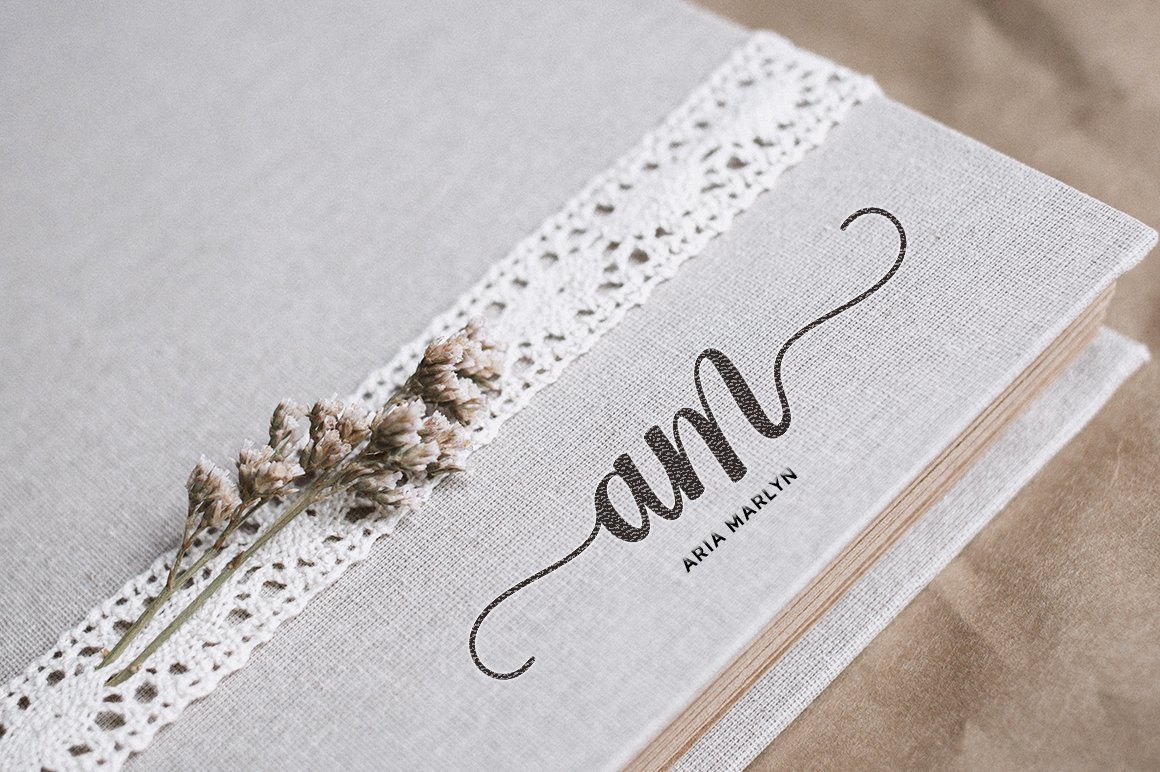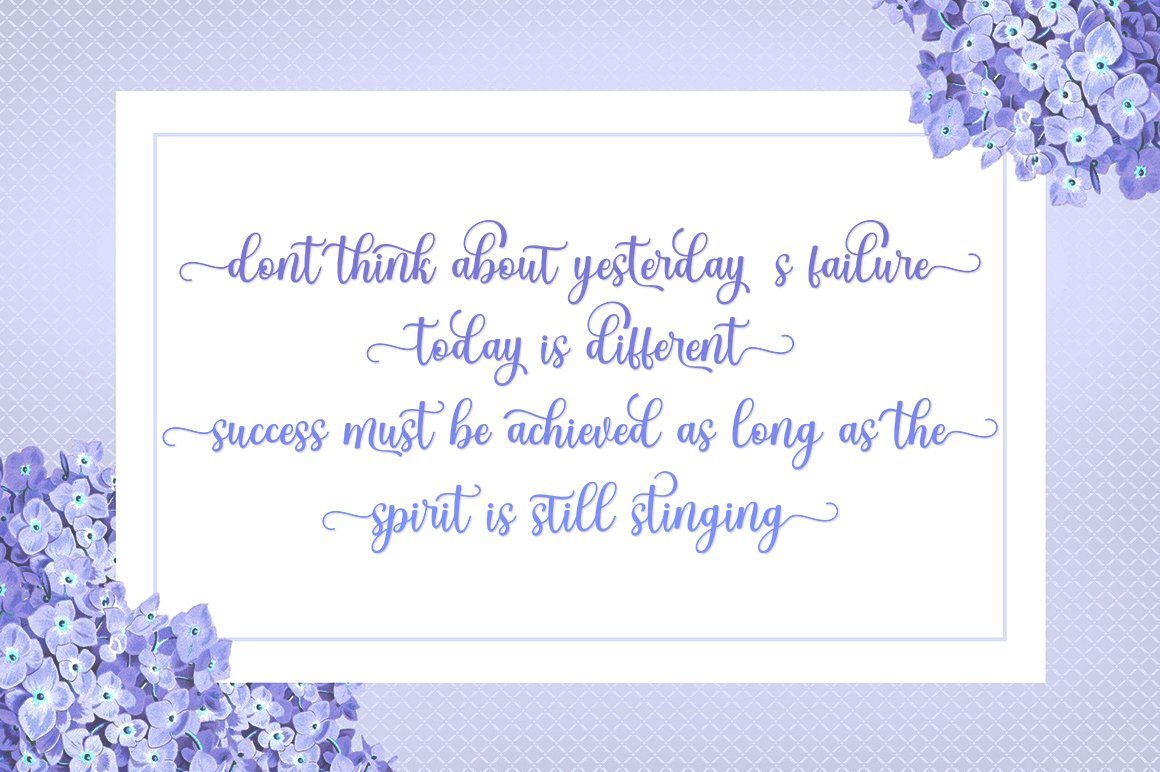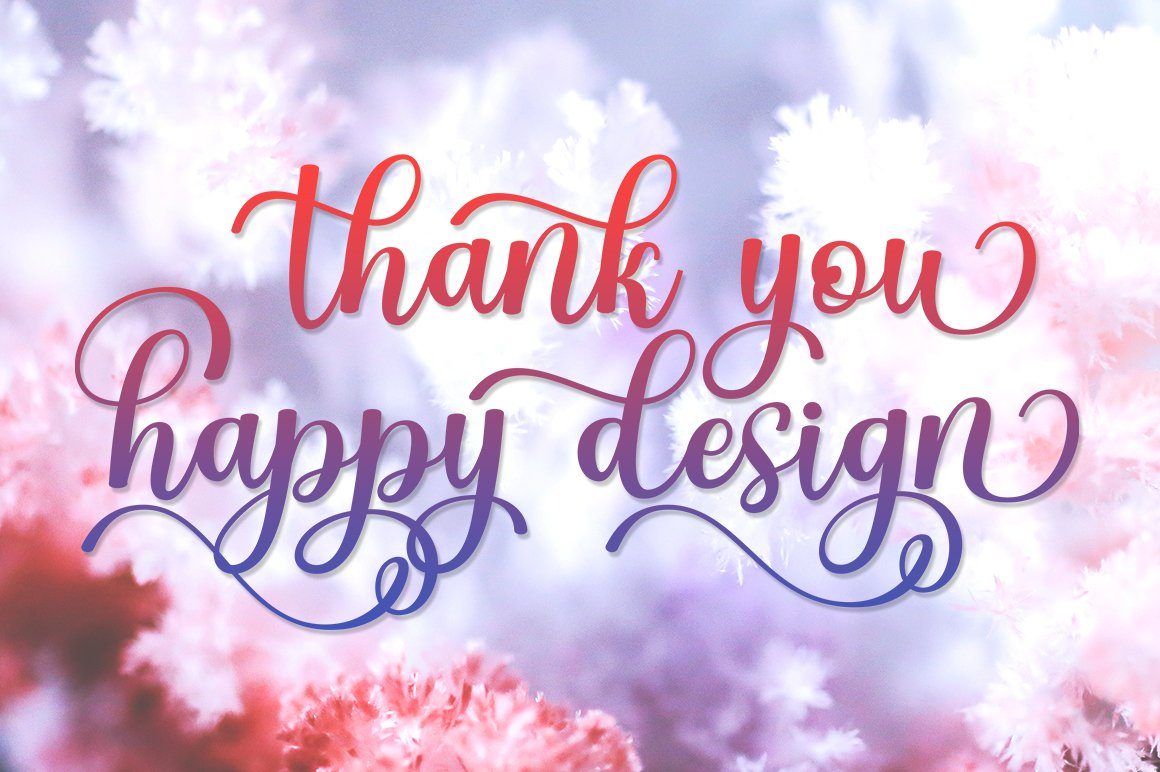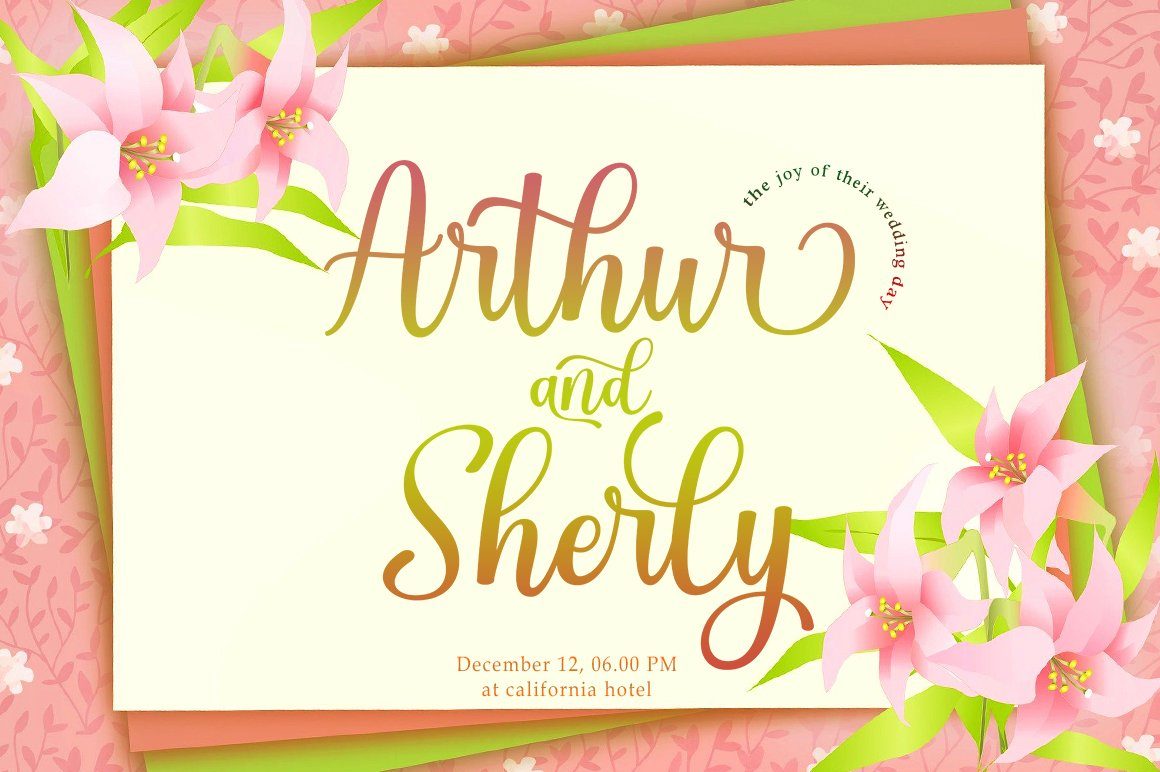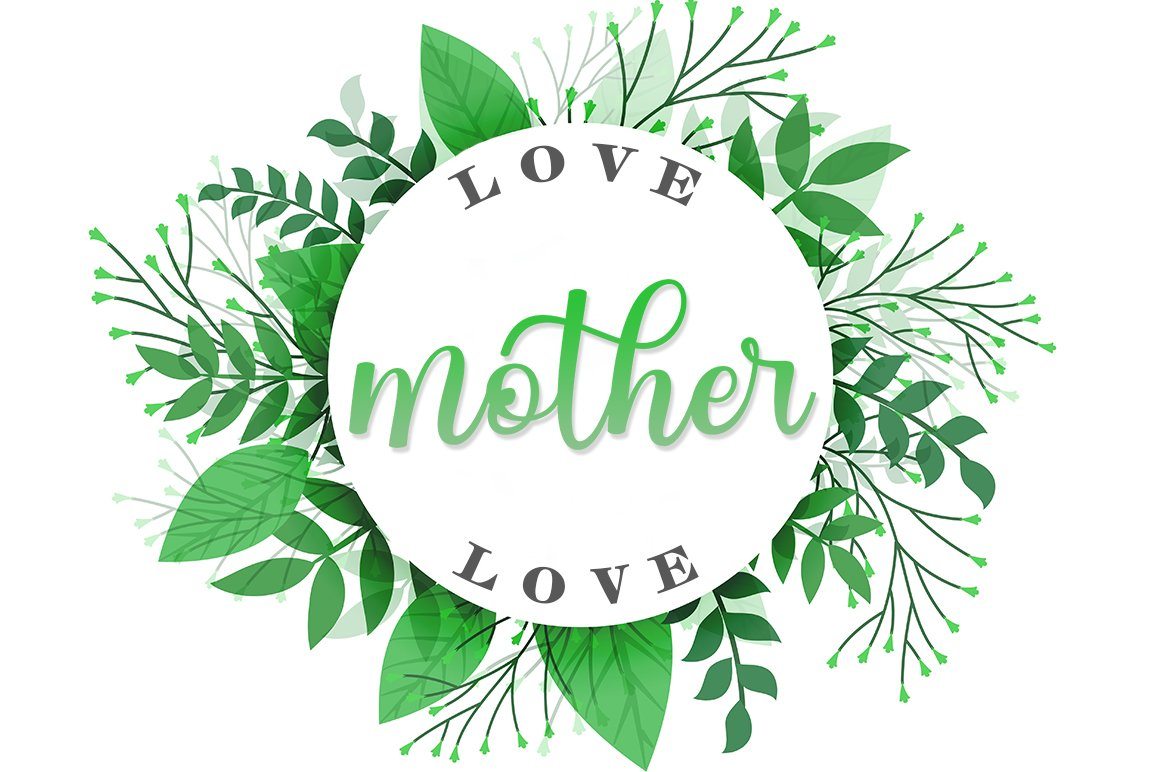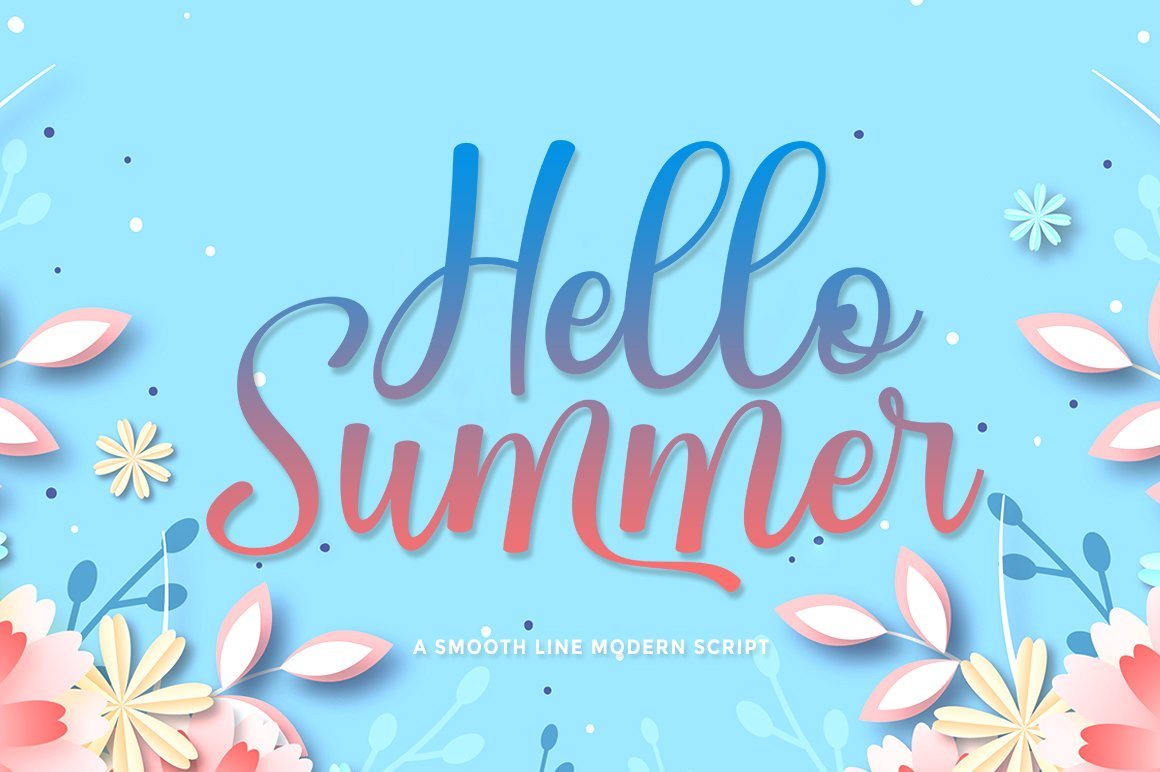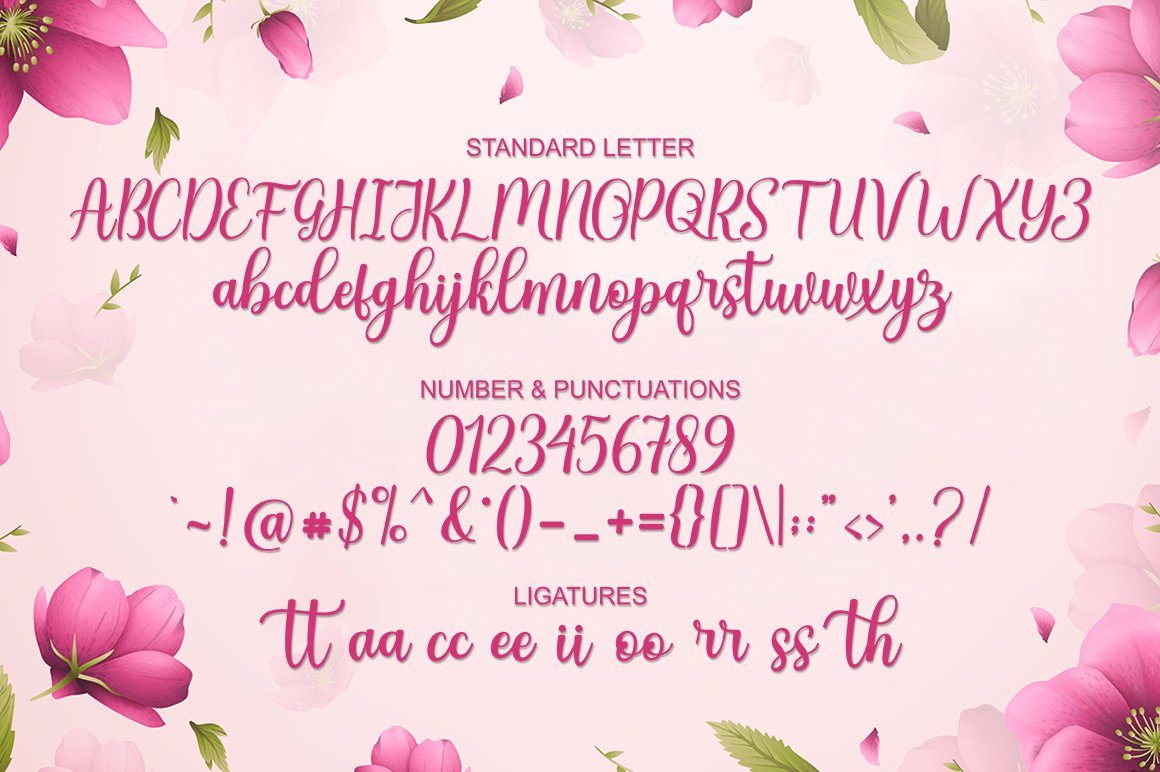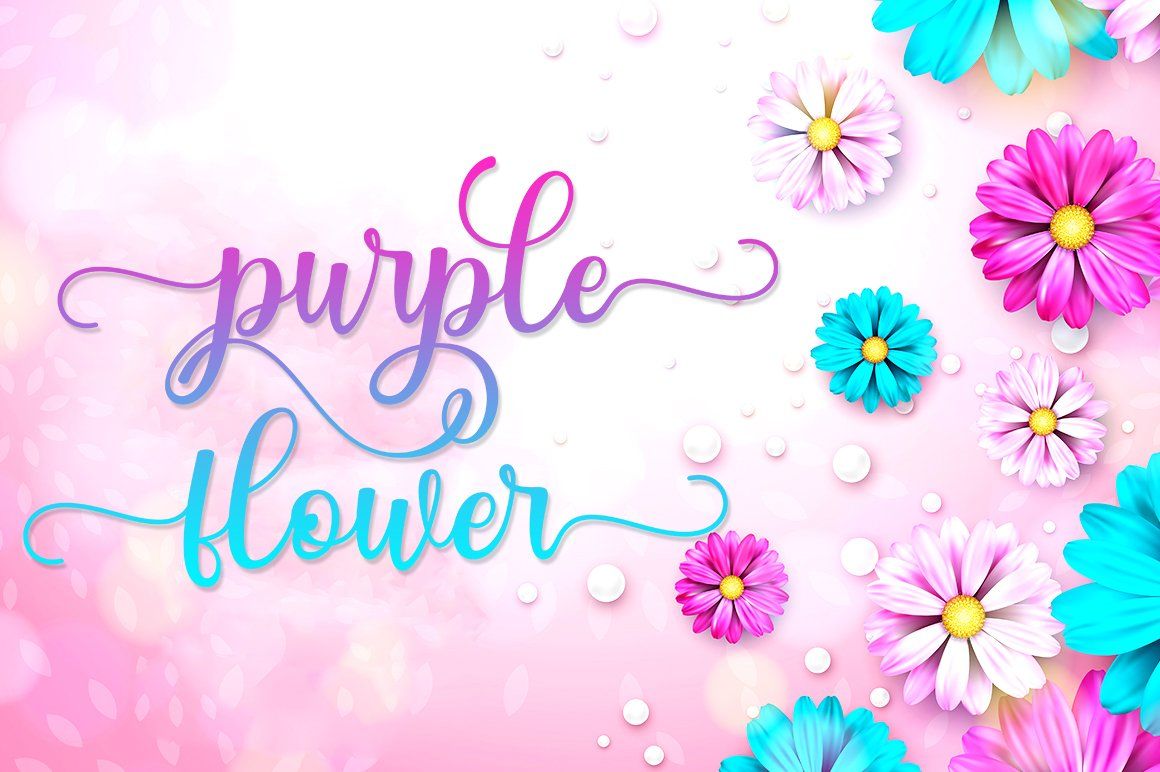
Hello Summer
Hello Summer is a beautiful script font with many alternative styles, this font looks natural, elegant, and perfect for extraordinary projects. Hello Summer is suitable for various products such as invitations, product packaging, quotes, product designs, crafters, labels, photography, watermarks, logos & branding. Everything can be accessed using software that supports Opentype, such as Adobe Indesign, Adobe CS Illustrator, Adobe Photoshop CC, and Corel Draw. You will get: Hello Summer OTF Hello Summer TTF Thank you 🙂